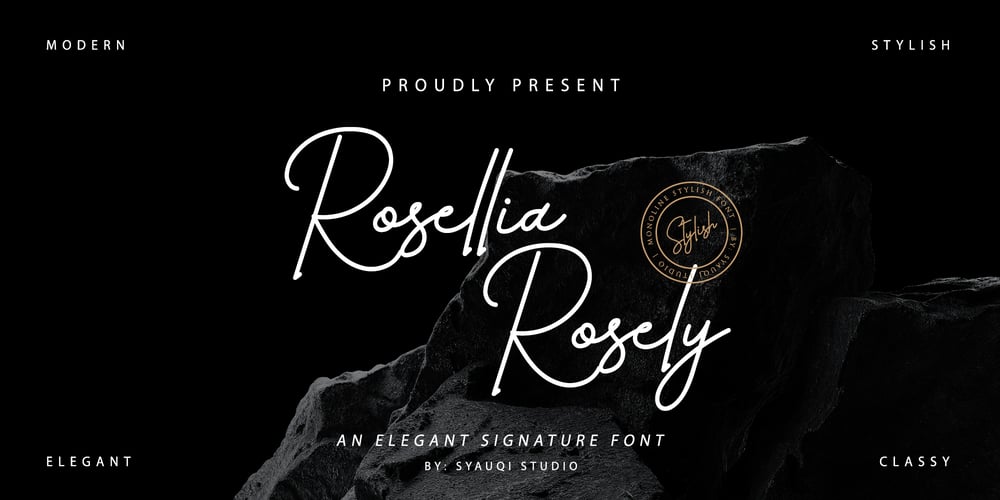
Rosellia Rosely Font Family was designed by Muhammad Asroful Umam and published by Syauqi Studio. Rosellia Rosely contains 1 styles and family package options. Introducing Rosellia Rosely: The Elegantly Crafted Signature FontExperience the allure of Rosellia Rosely, a meticulously crafted handwritten font designed for those who appreciate elegance and sophistication in their typography. With its flowing lines and graceful curves, Rosellia Rosely embodies the essence of a refined signature, adding a touch of personal flair to every project.Rosellia Rosely is ideal for a wide range of design applications where a personalized, human touch is desired. Whether used in digital or print media, this font lends a distinctive charm to: Brand Identity: Elevate your brand with a signature font that exudes professionalism and exclusivity. Rosellia Rosely enhances logos, business cards, and corporate materials with its unique character. Wedding Invitations: Capture the essence of romance and sophistication with handwritten invitations that leave a lasting impression. Rosellia Rosely brings a touch of elegance to every wedding suite. Product Packaging: From cosmetics to luxury goods, Rosellia Rosely adds a premium feel to packaging designs, making your products stand out on the shelves. Personal Projects: Whether creating personalized stationery, greeting cards, or custom gifts, this font allows individuals to express their style with a touch of elegance. Why Choose Rosellia Rosely: Uniquely Handcrafted: Each letter is meticulously designed to maintain a consistent flow and readability, ensuring a polished appearance across various applications. Versatile Usage: Suitable for both digital and print media, Rosellia Rosely adapts seamlessly to different design needs without compromising its elegant appeal. Timeless Elegance: Its classic yet modern aesthetic ensures longevity, making it a valuable addition to any designer’s toolkit. Elevate your designs with Rosellia Rosely and discover how this elegant signature font can transform your creative projects into timeless pieces of art. Embrace the beauty of handwritten sophistication with Rosellia Rosely today.